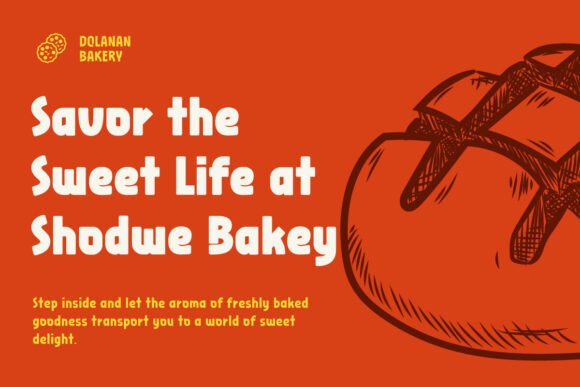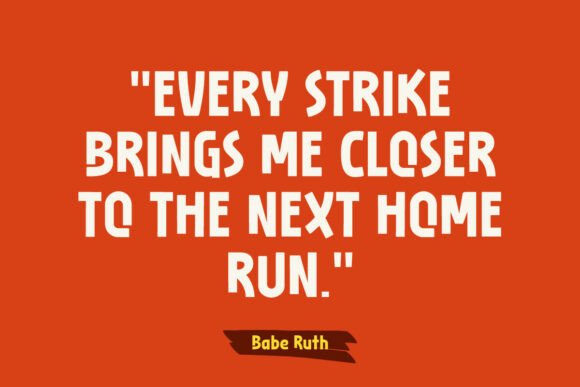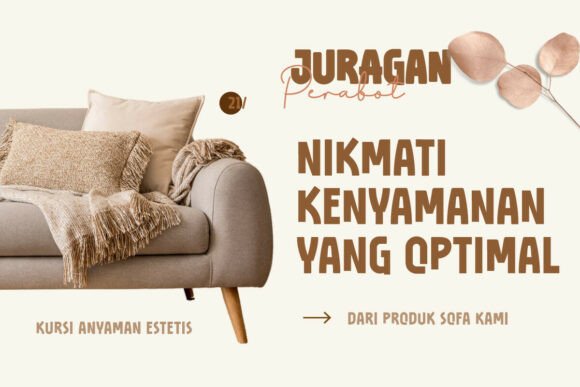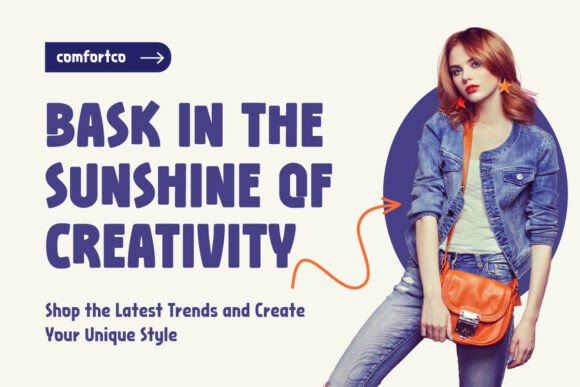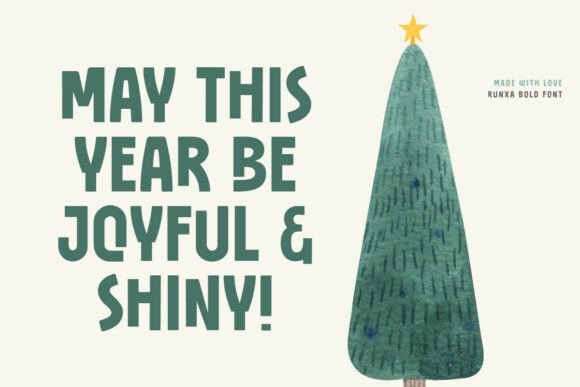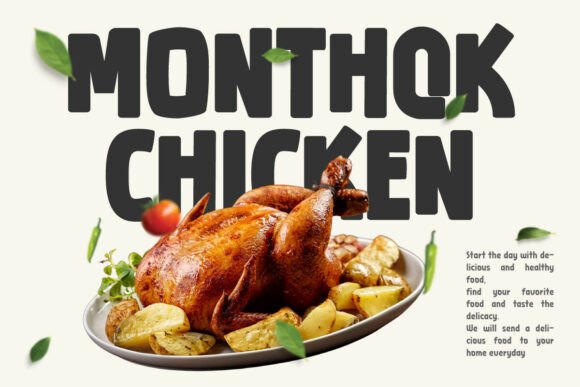
Introduction to Runxa Font
Runxa is a striking, bold, tall display font designed to command attention and elevate your headlines.
With its extra-tall letterforms, strong vertical presence, and thick strokes, Runxa is ideal for impactful posters, magazine titles, album covers, sports branding, and streetwear designs .
Key Features of Runxa Font